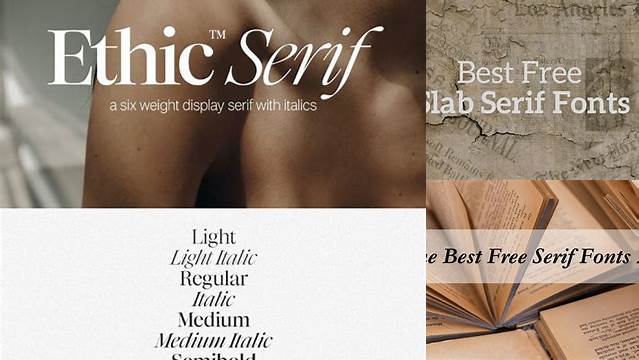
Hey guys! Are you on the hunt for a classic and versatile font that exudes both sophistication and readability? Look no further! The Ethic Serif font family is a fantastic choice for a wide array of design projects. In this article, we’ll dive deep into the world of Ethic Serif, exploring its characteristics, ideal use cases, and, most importantly, where you can snag it for free. Let’s get started!
What is Ethic Serif Font?
Ethic Serif is a typeface celebrated for its timeless appeal and legibility. It falls under the serif category, which means it features small decorative strokes, or serifs, at the end of each character. These serifs contribute to its traditional and polished look, making it a favorite for both digital and print media. The font is meticulously designed to ensure readability across various sizes and resolutions, offering a harmonious balance between aesthetics and functionality.
Designed with versatility in mind, Ethic Serif works exceptionally well in numerous contexts. Imagine using it for the body text of a prestigious journal, where its clear and elegant forms ensure readers can effortlessly engage with the content. Picture it gracing the pages of a beautifully crafted book, adding a touch of classic charm that enhances the reading experience. Envision it as the cornerstone of a corporate website, lending an air of professionalism and trustworthiness to the brand's online presence. Or perhaps you see it elevating the design of formal invitations, where its refined strokes convey a sense of sophistication and importance.
The Ethic Serif font’s strength lies in its ability to adapt seamlessly to different design needs, maintaining its integrity and appeal whether it’s used for lengthy paragraphs or attention-grabbing headlines. This adaptability makes it an invaluable asset for designers aiming to create visually appealing and easily readable content, regardless of the medium. Whether you're crafting a digital masterpiece or a tangible piece of print, Ethic Serif ensures your message is delivered with clarity and style.
In summary, Ethic Serif is more than just a font; it's a versatile tool that enhances the readability and aesthetic appeal of any project. Its classic design and meticulous construction make it a reliable choice for anyone looking to add a touch of timeless elegance to their work. By understanding its characteristics and versatility, you can leverage Ethic Serif to create compelling designs that stand the test of time.
Key Characteristics of Ethic Serif
When evaluating a font, understanding its key characteristics is crucial. Ethic Serif distinguishes itself through several notable features:
- Readability: Ethic Serif is engineered for optimal readability, making it suitable for extended text passages. The letterforms are carefully crafted to ensure that each character is easily distinguishable, reducing eye strain and enhancing reading speed. This focus on clarity makes it an excellent choice for books, articles, and websites where content legibility is paramount.
- Classic Design: With its traditional serif styling, Ethic Serif exudes a sense of timeless elegance. The serifs add a touch of formality and refinement, making it ideal for projects that require a sophisticated and polished look. Whether you're designing a high-end brochure or an academic paper, Ethic Serif brings a level of class that few other fonts can match.
- Versatility: Ethic Serif's versatility is one of its greatest strengths. It performs admirably in both headlines and body text, adapting seamlessly to different design requirements. Its balanced proportions and clean lines ensure it remains legible and visually appealing across various sizes and contexts. This adaptability makes it a valuable asset for any designer looking for a reliable and multipurpose typeface.
- Professional Appearance: The font projects a professional and trustworthy image, making it an excellent choice for corporate branding and business communications. Its clean and structured design conveys a sense of competence and reliability, which can help to build trust with your audience. Whether you're creating a company report or a marketing presentation, Ethic Serif enhances your message with a touch of professionalism.
- Balanced Proportions: The balanced proportions of Ethic Serif contribute to its overall harmony and visual appeal. The letterforms are meticulously crafted to ensure that each character complements the others, creating a cohesive and pleasing typographic texture. This attention to detail enhances the font's aesthetic quality, making it a joy to read and look at.
These characteristics combine to make Ethic Serif a powerful tool for designers seeking a font that is both functional and aesthetically pleasing. Its ability to enhance readability, convey professionalism, and adapt to various design needs makes it a standout choice in the world of typography.
Ideal Use Cases for Ethic Serif
Ethic Serif’s classic and legible design lends itself well to a variety of applications. Here are some ideal use cases:
In conclusion, Ethic Serif is a versatile and elegant font that can enhance a wide range of design projects. Its readability, classic design, and professional appearance make it an excellent choice for books, corporate branding, web design, and more. By understanding its key characteristics and ideal use cases, you can leverage Ethic Serif to create compelling and impactful designs. And with the resources provided, finding a free version of Ethic Serif is easier than you might think. Happy designing, guys!